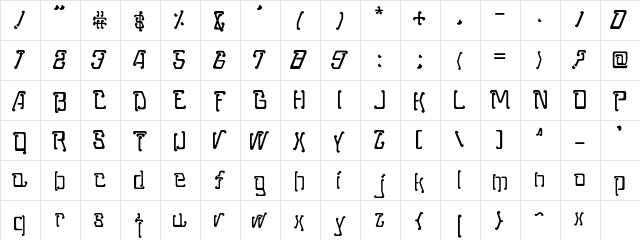
Moped SemiBold
Design Context for Moped Typeface
Moped is a composed and adaptable typeface that performs quietly and consistently across a wide range of design contexts. Its bold stroke weight gives it real presence on the page.
Pro Tip: Pair Moped with a font of contrasting weight or personality to build a more expressive typographic hierarchy.